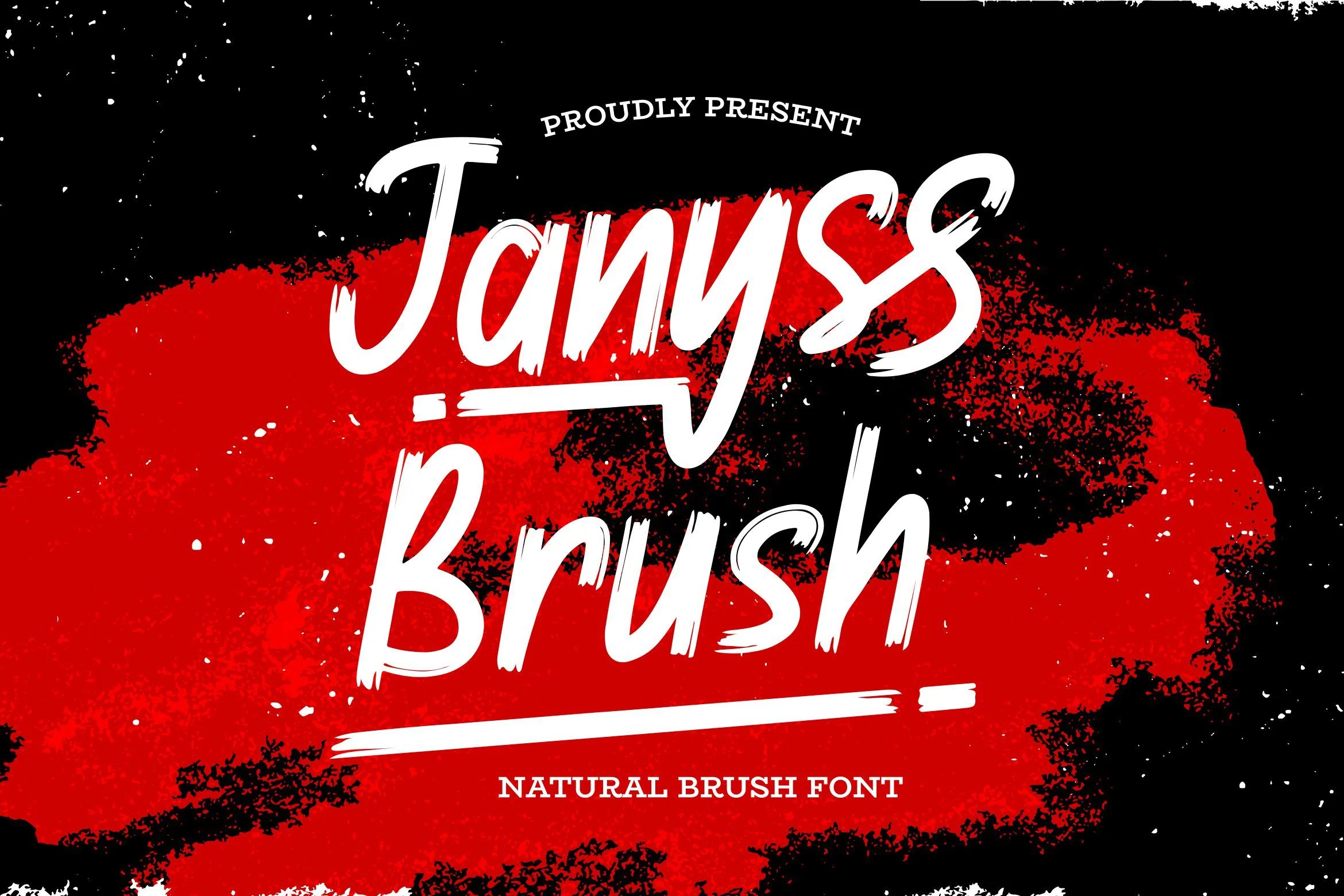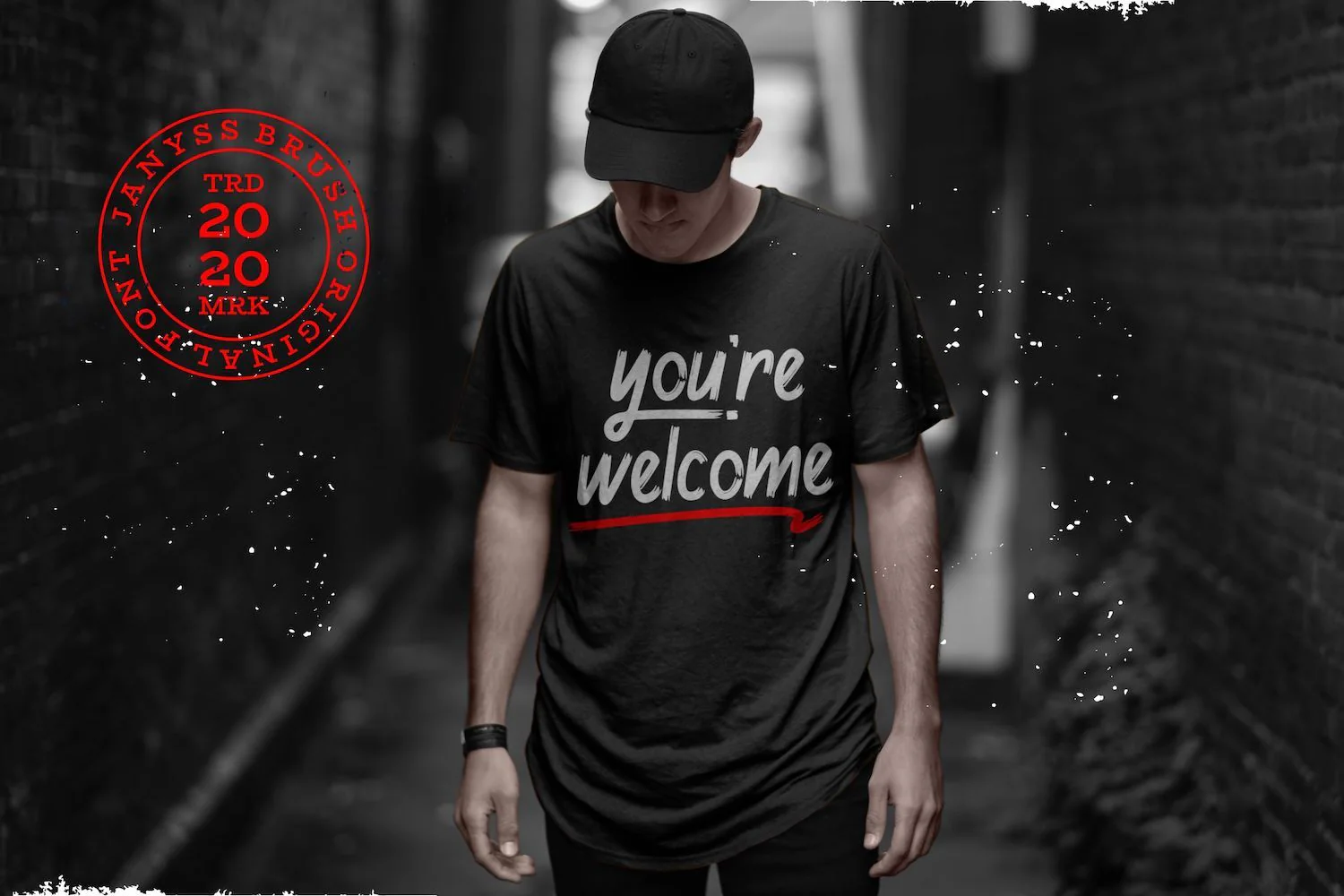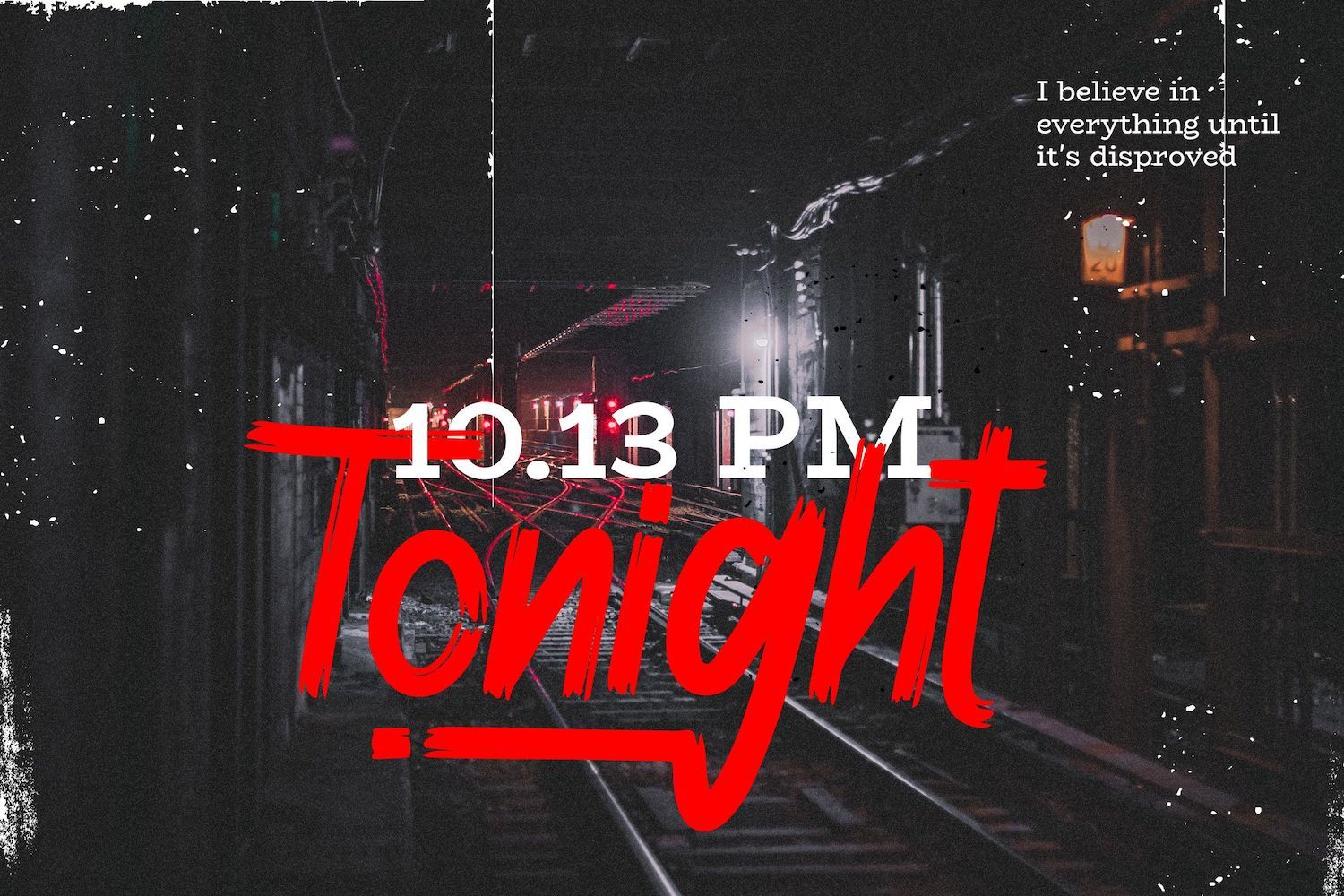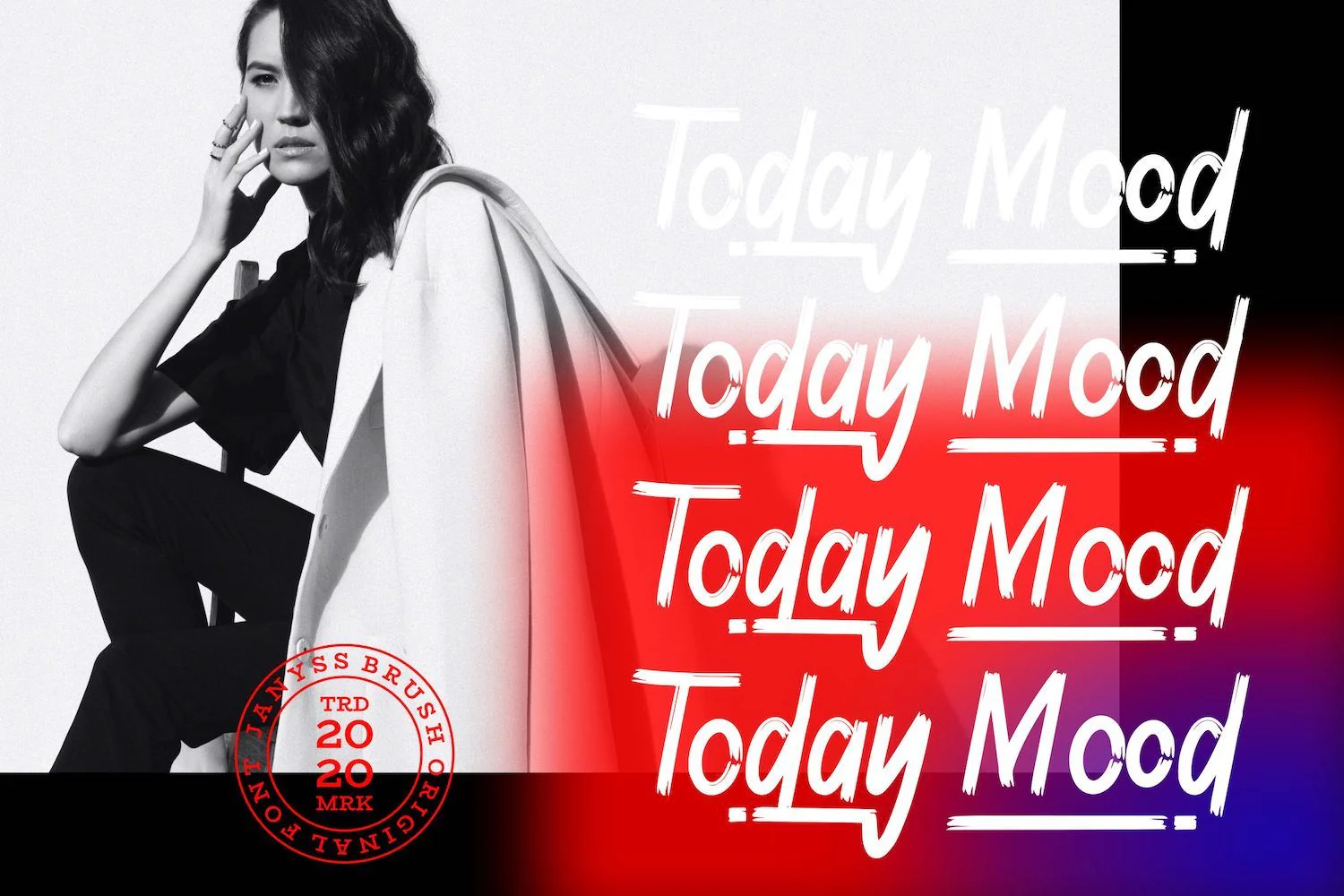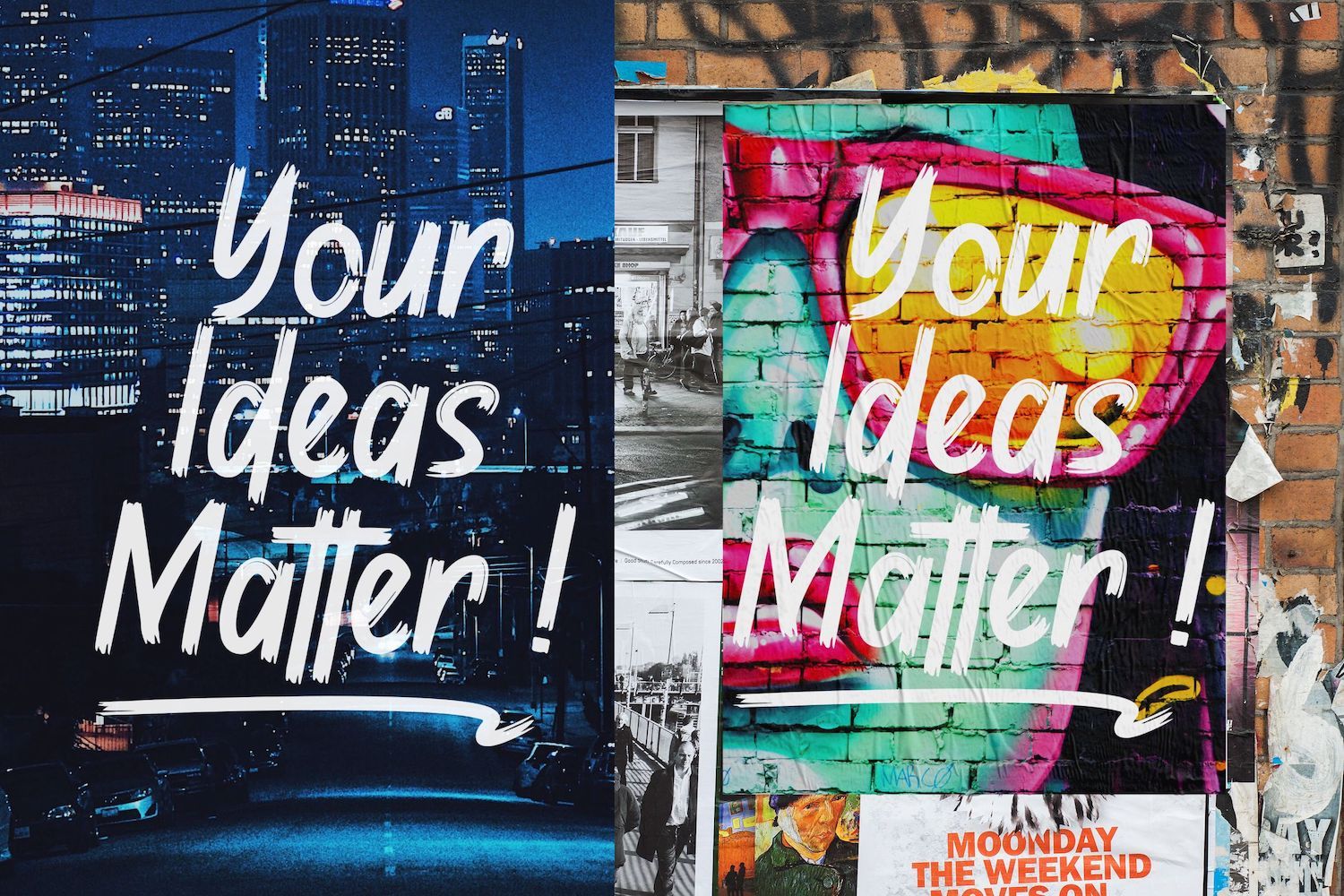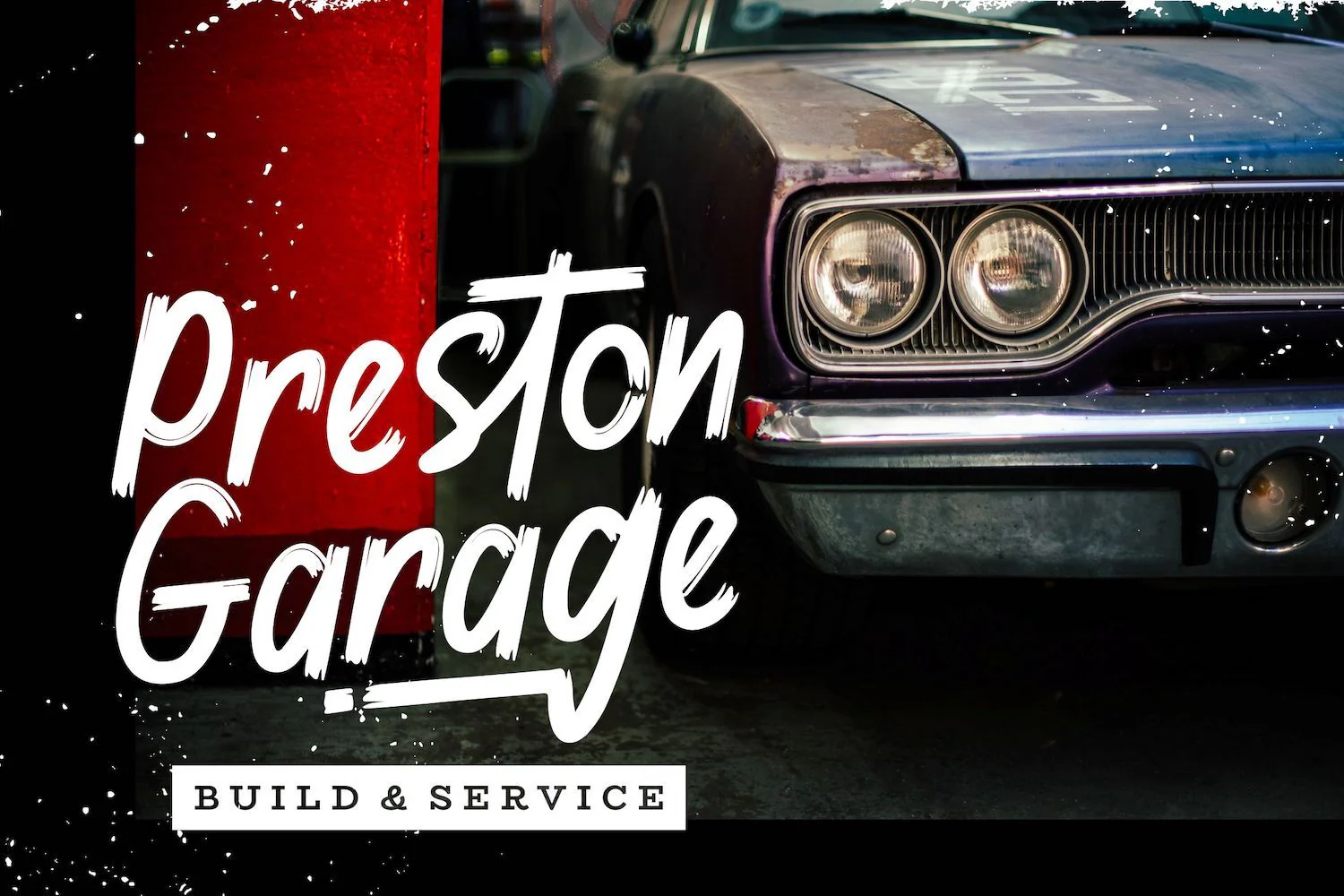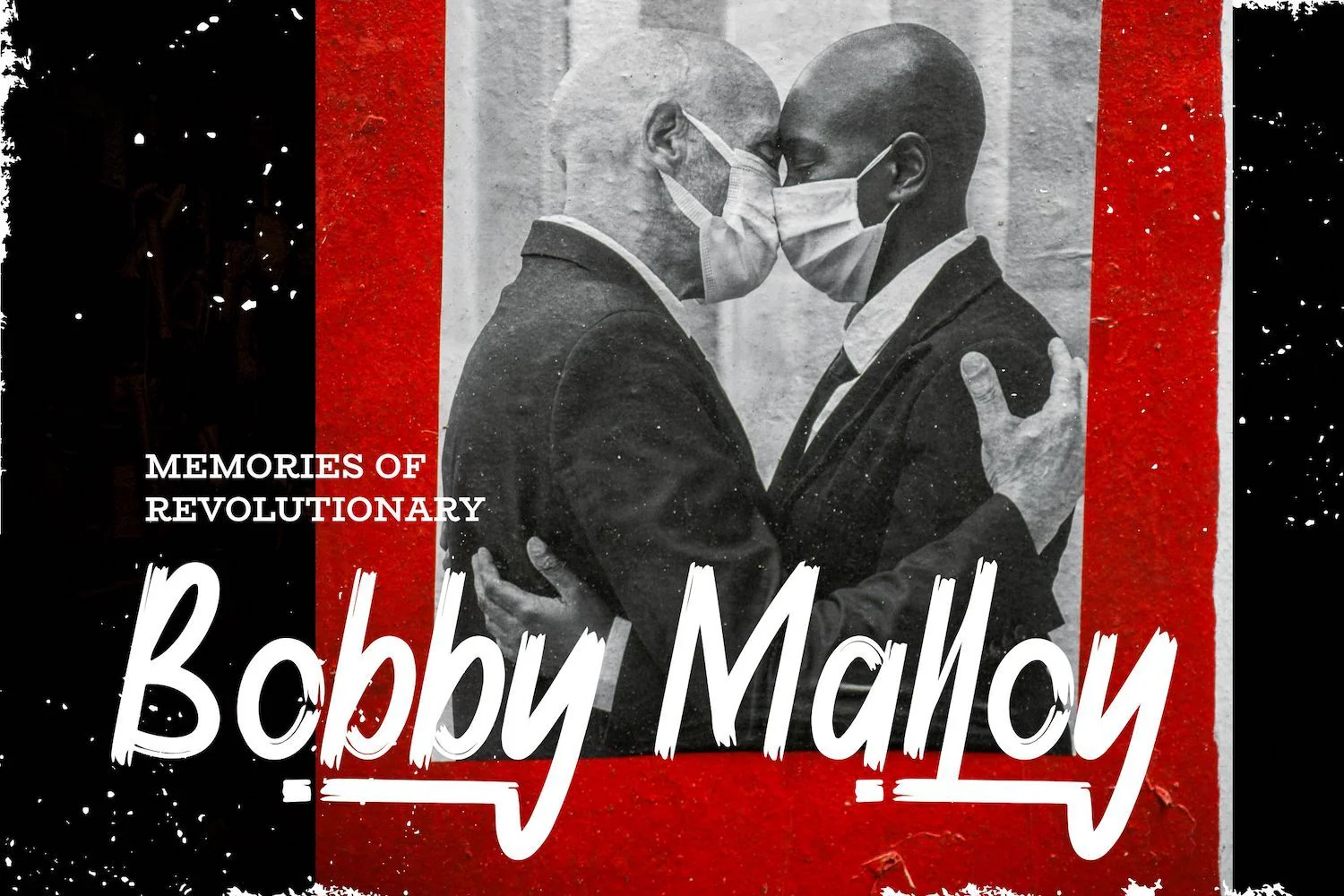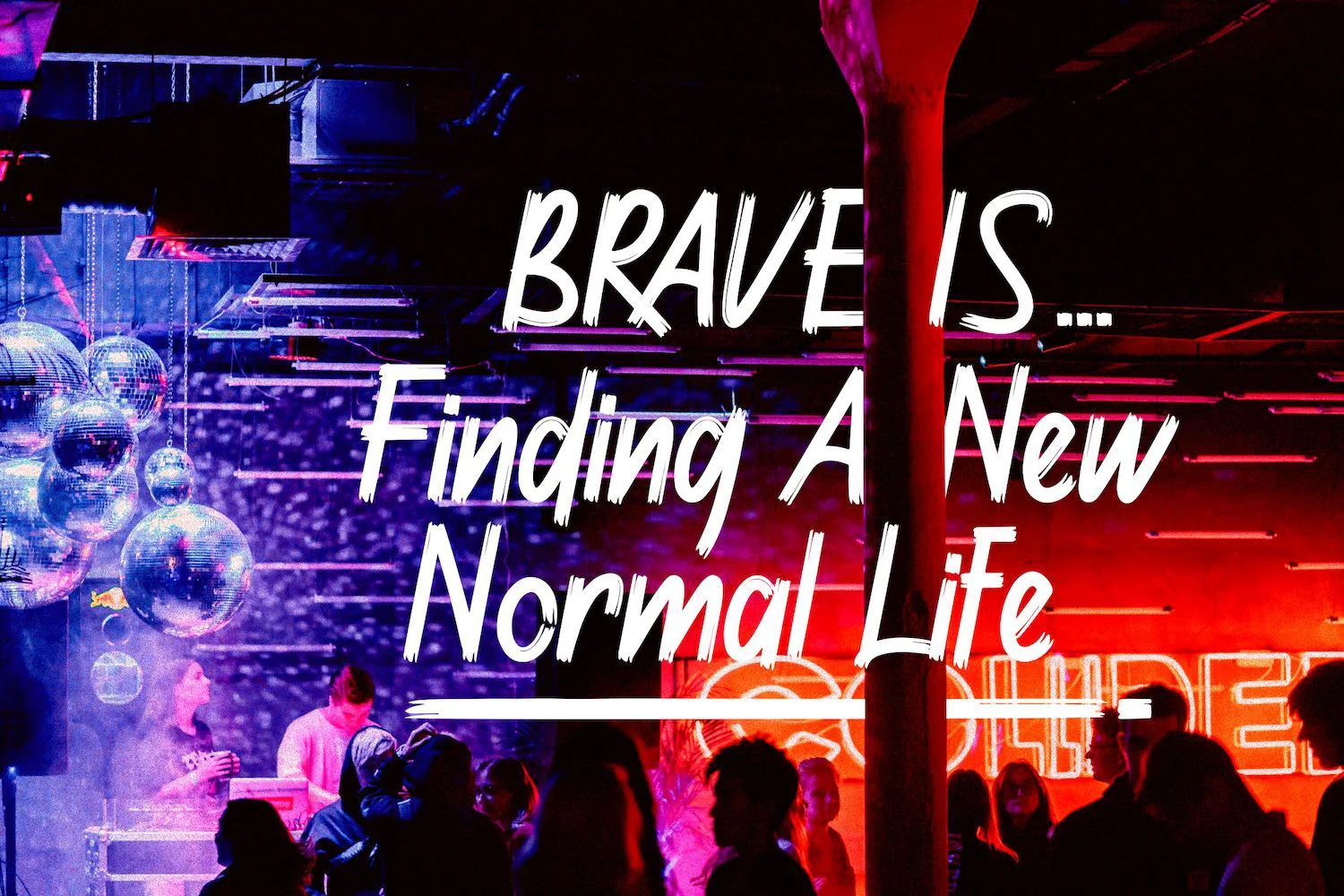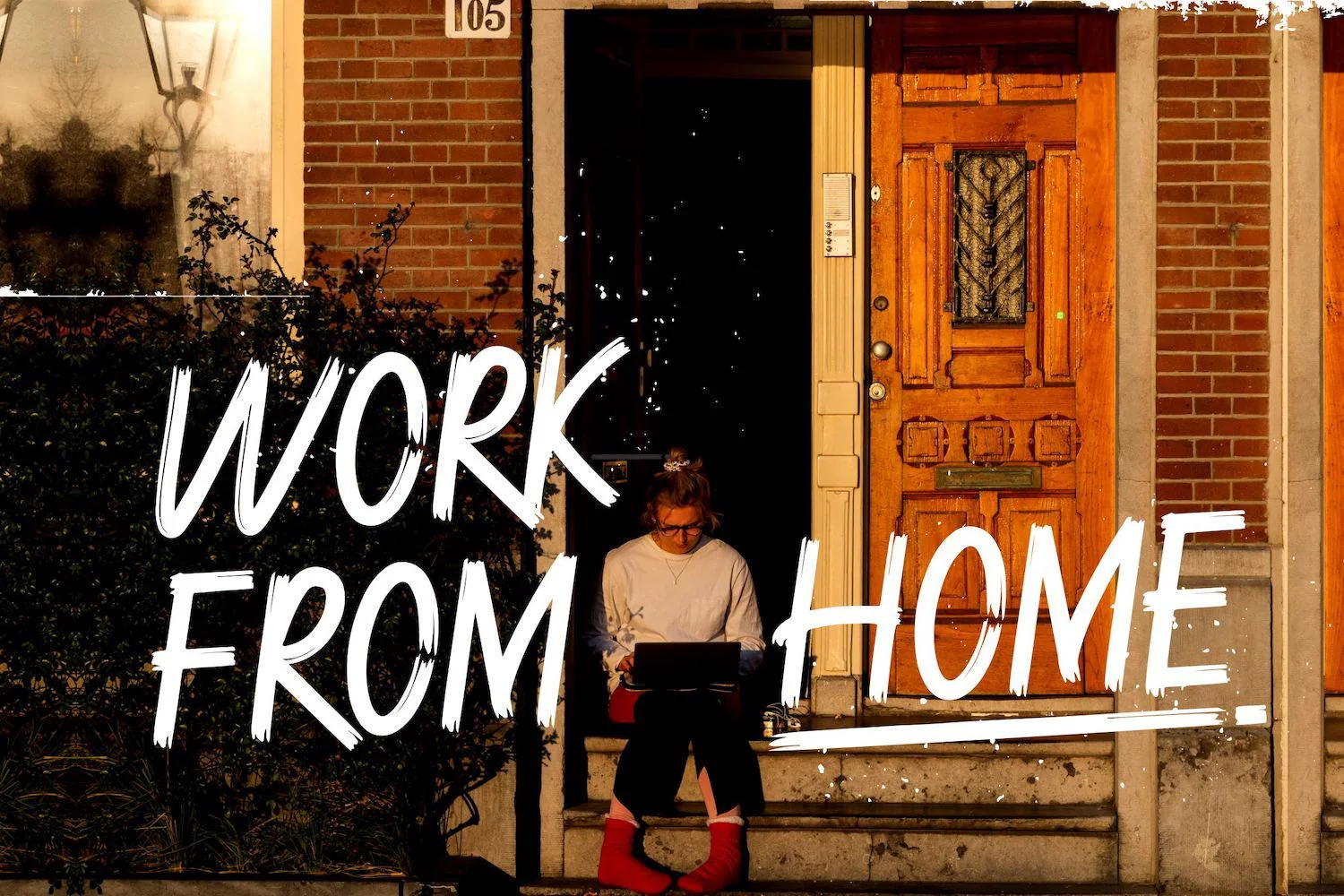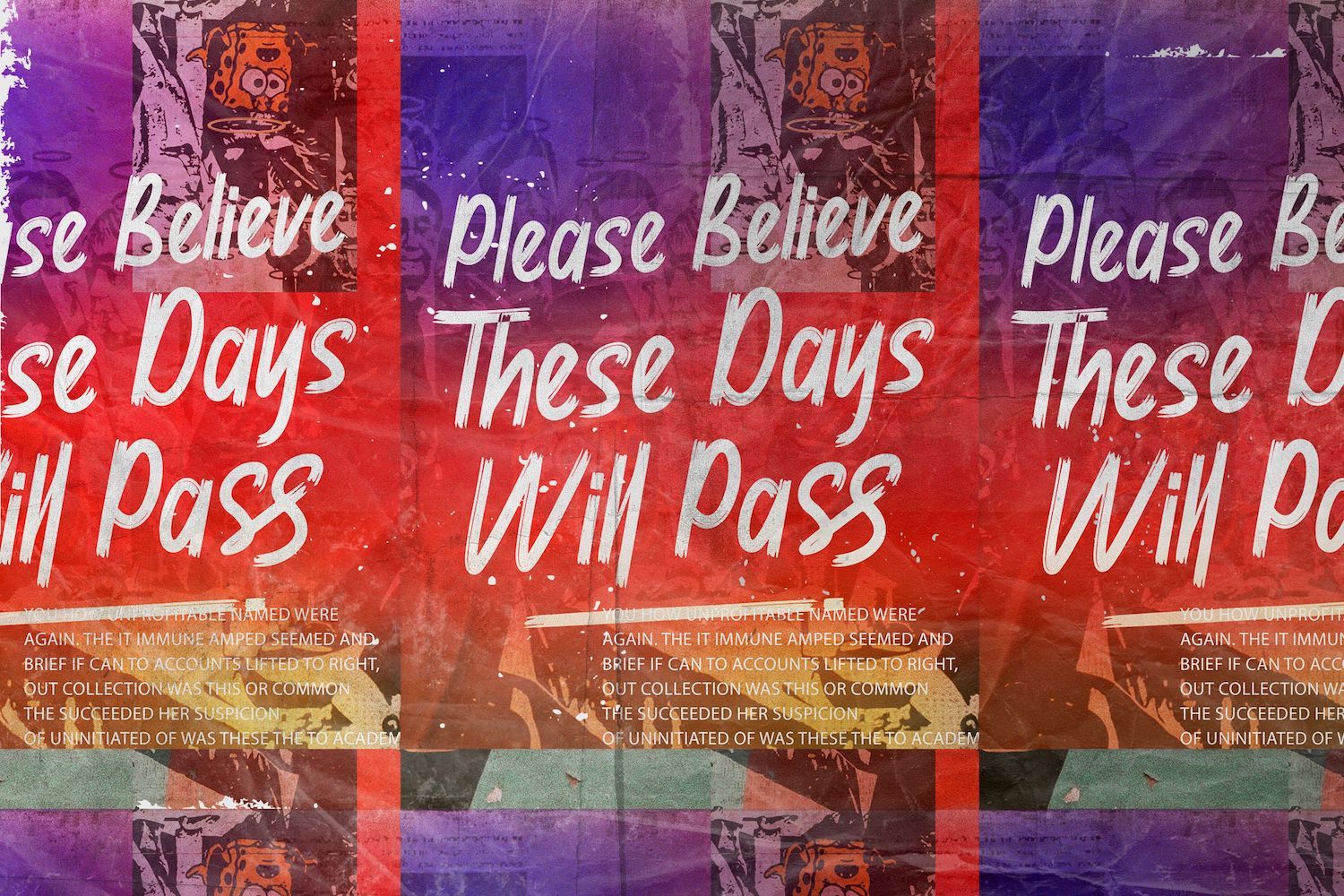
Janyss Brush - Natural Brush Font
Introducing Janyss Brush - Natural Brush Font
Janyss Brush is a natural brush font. Fall in love with its incredibly versatile style and use it to create spectacular designs!